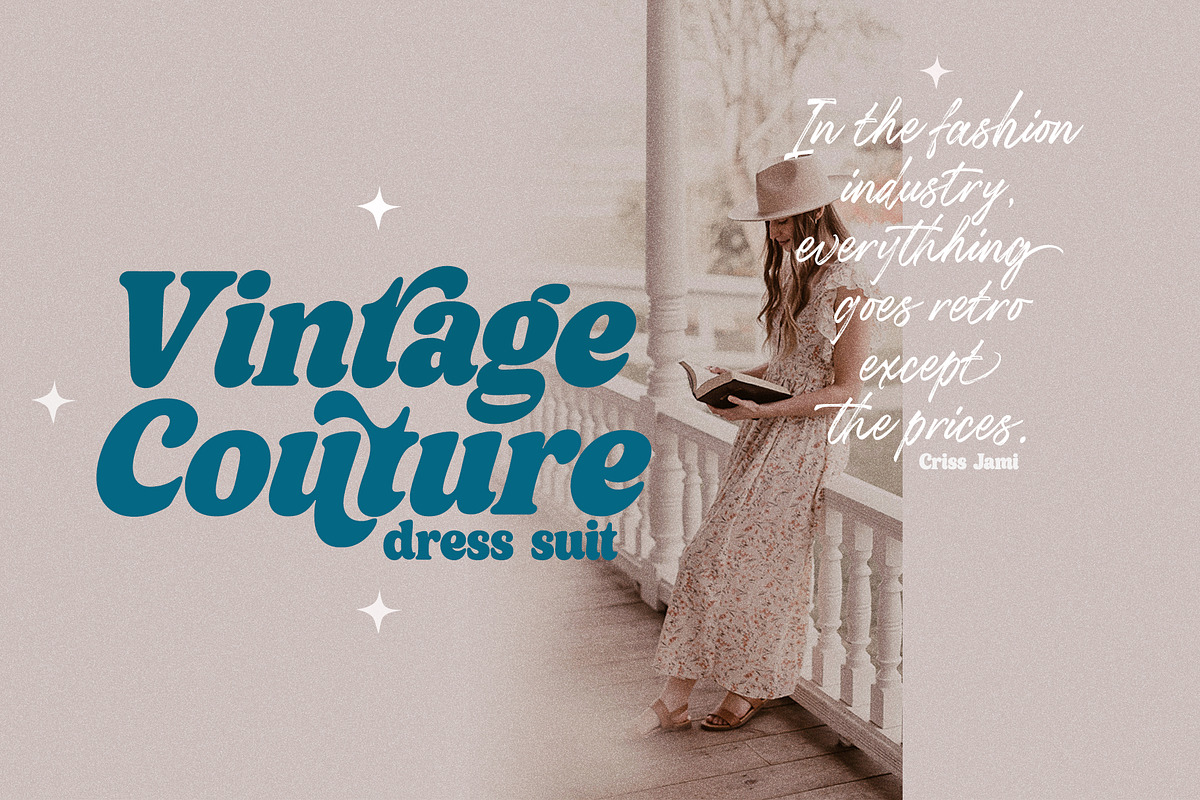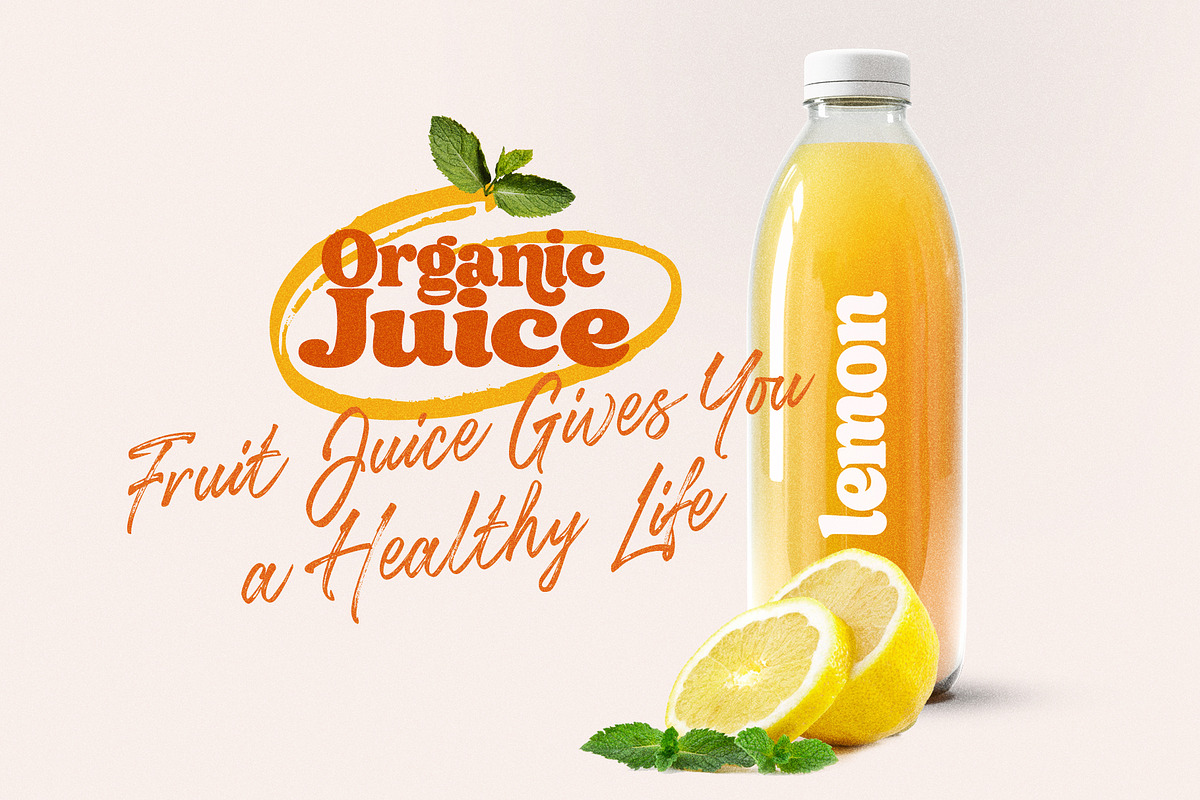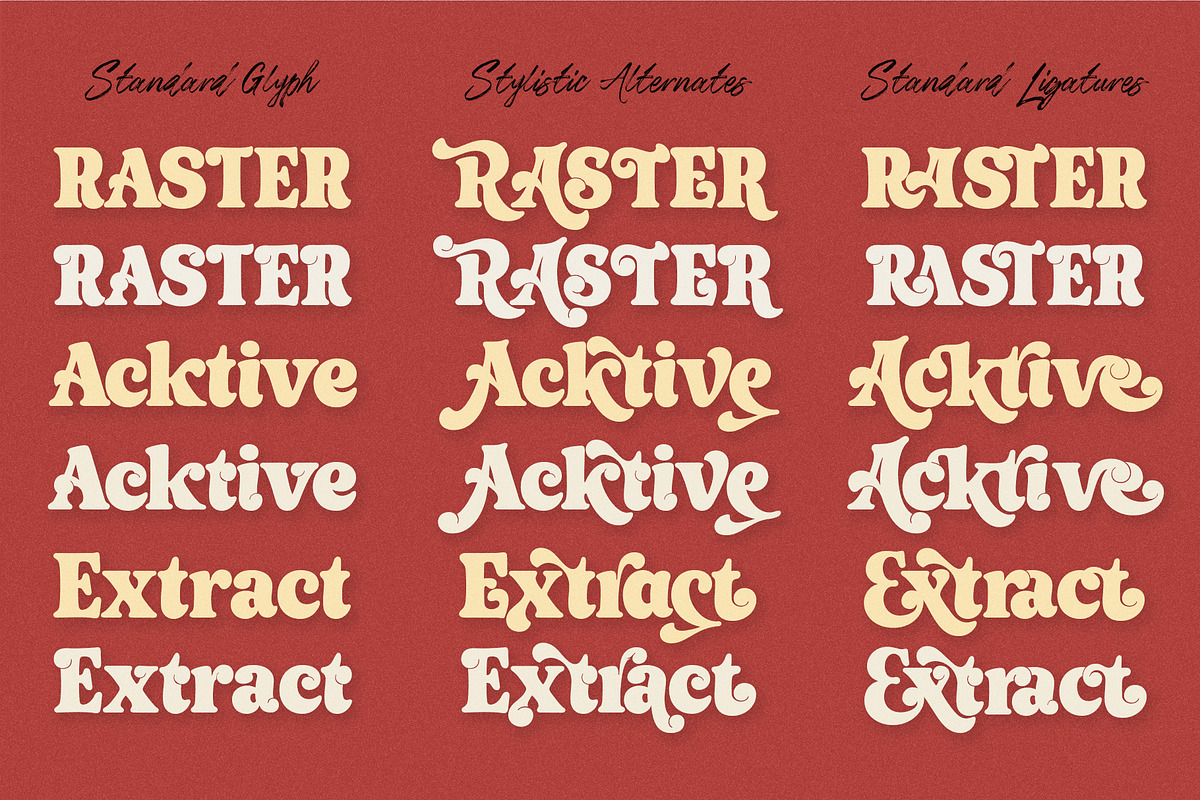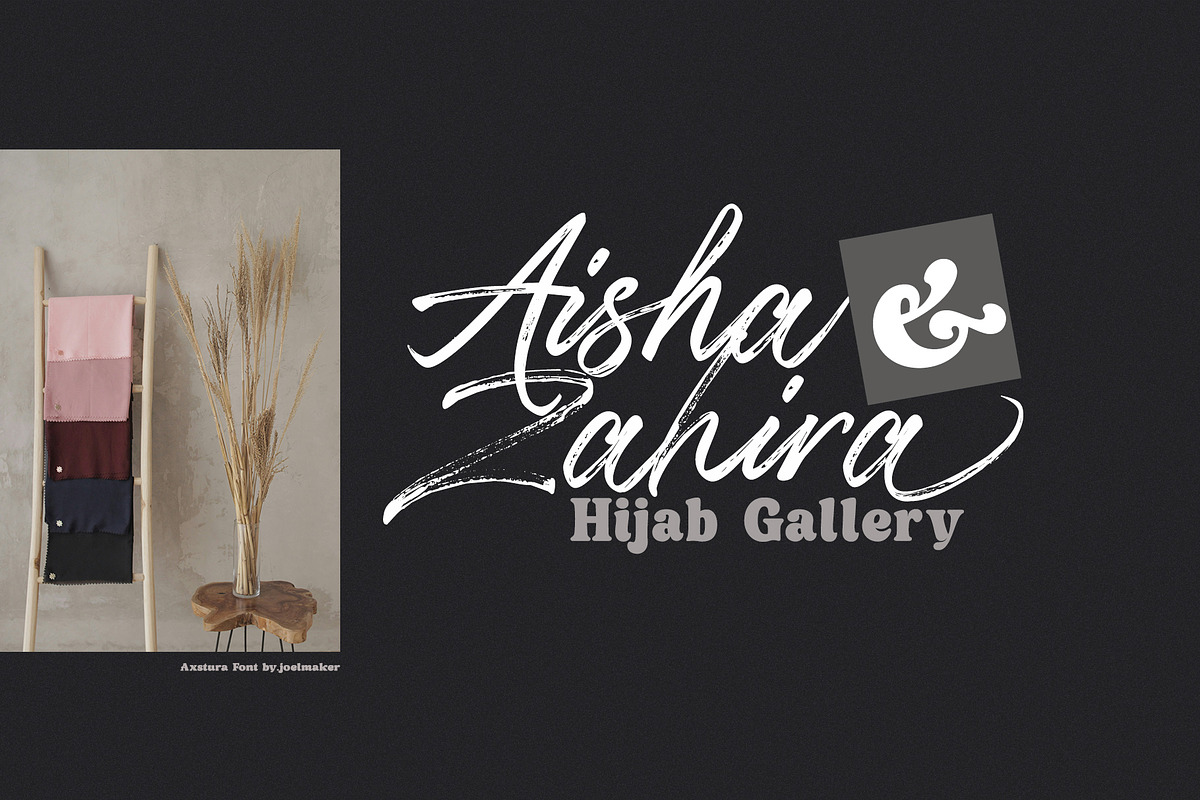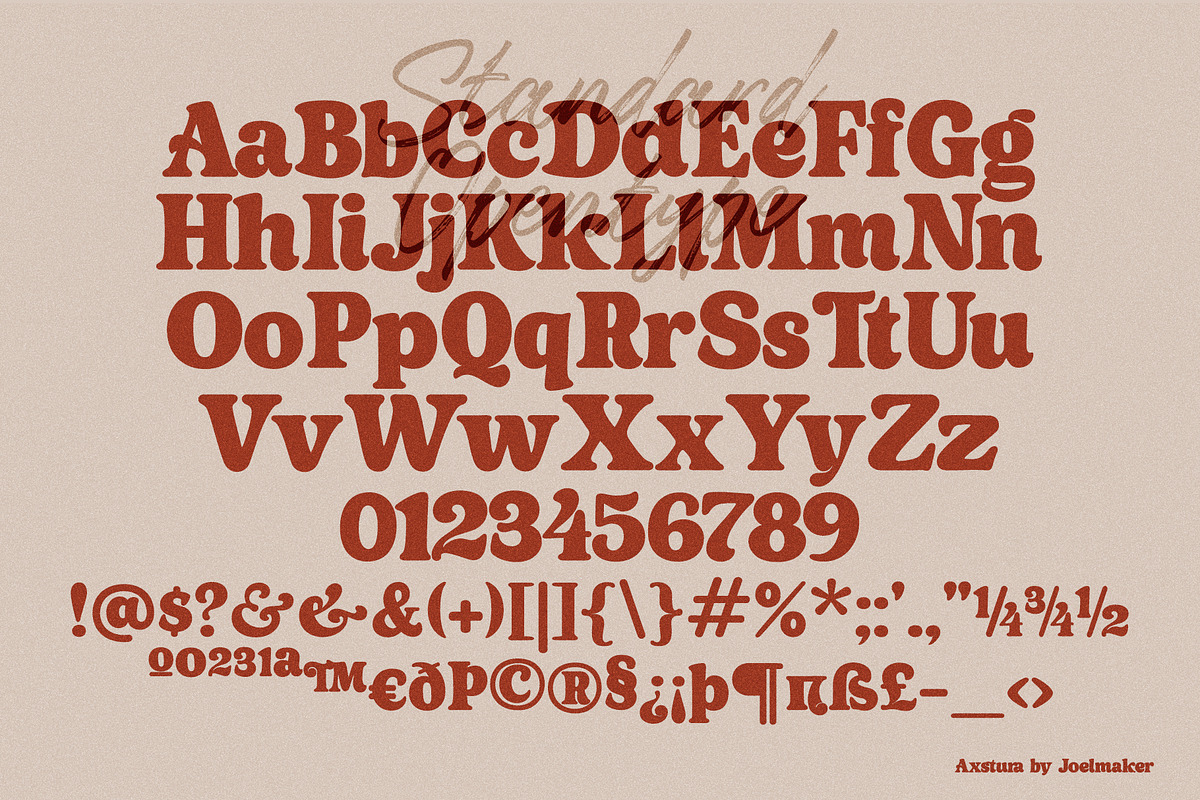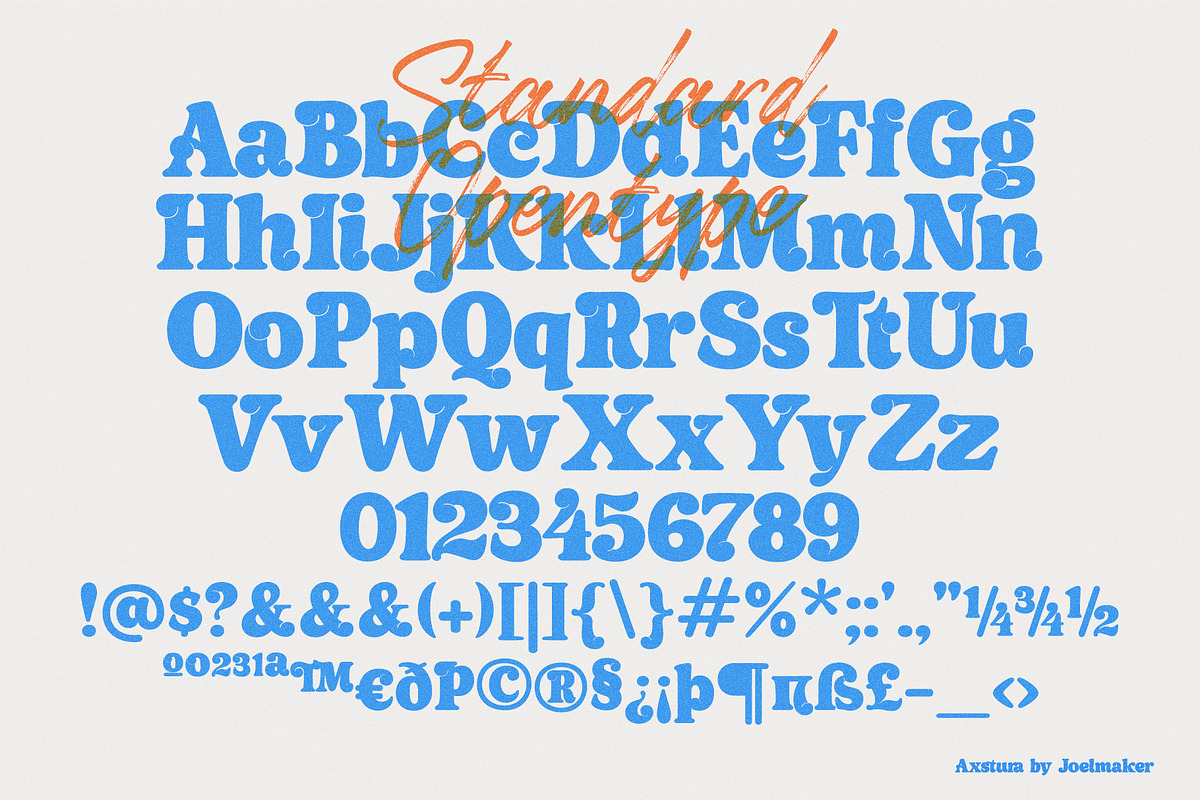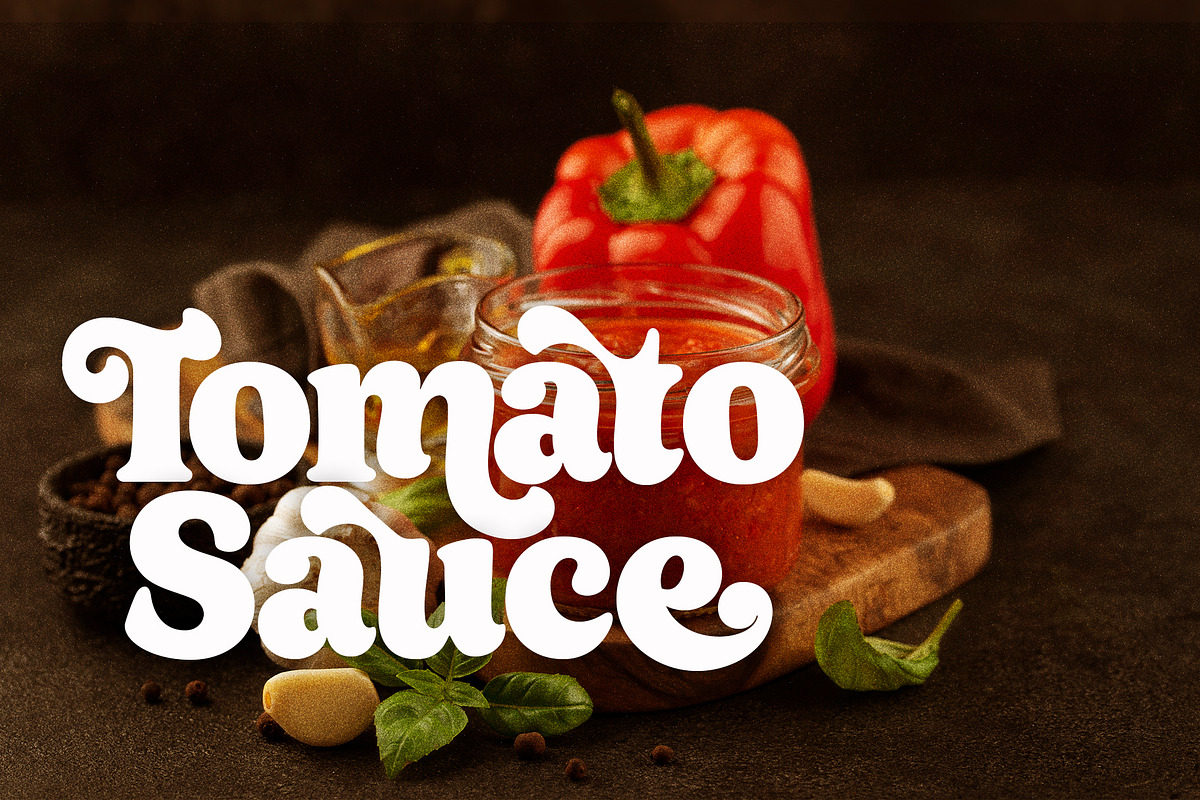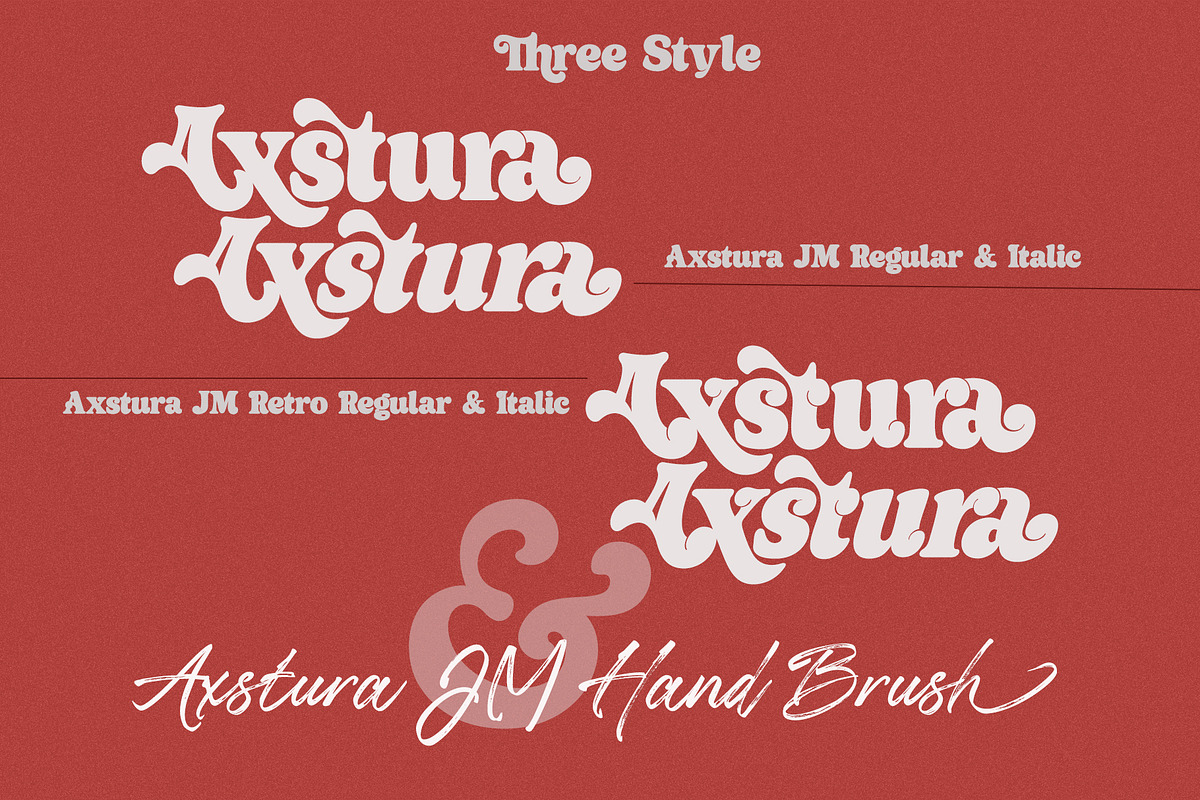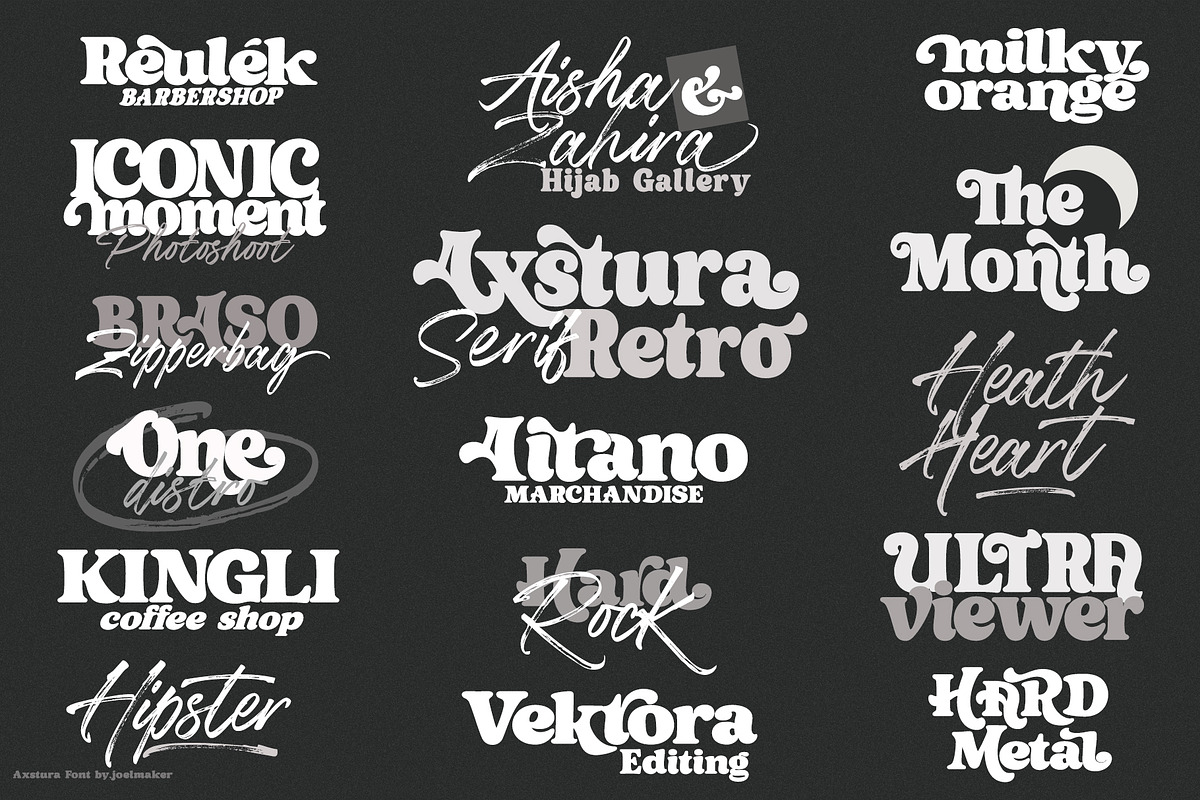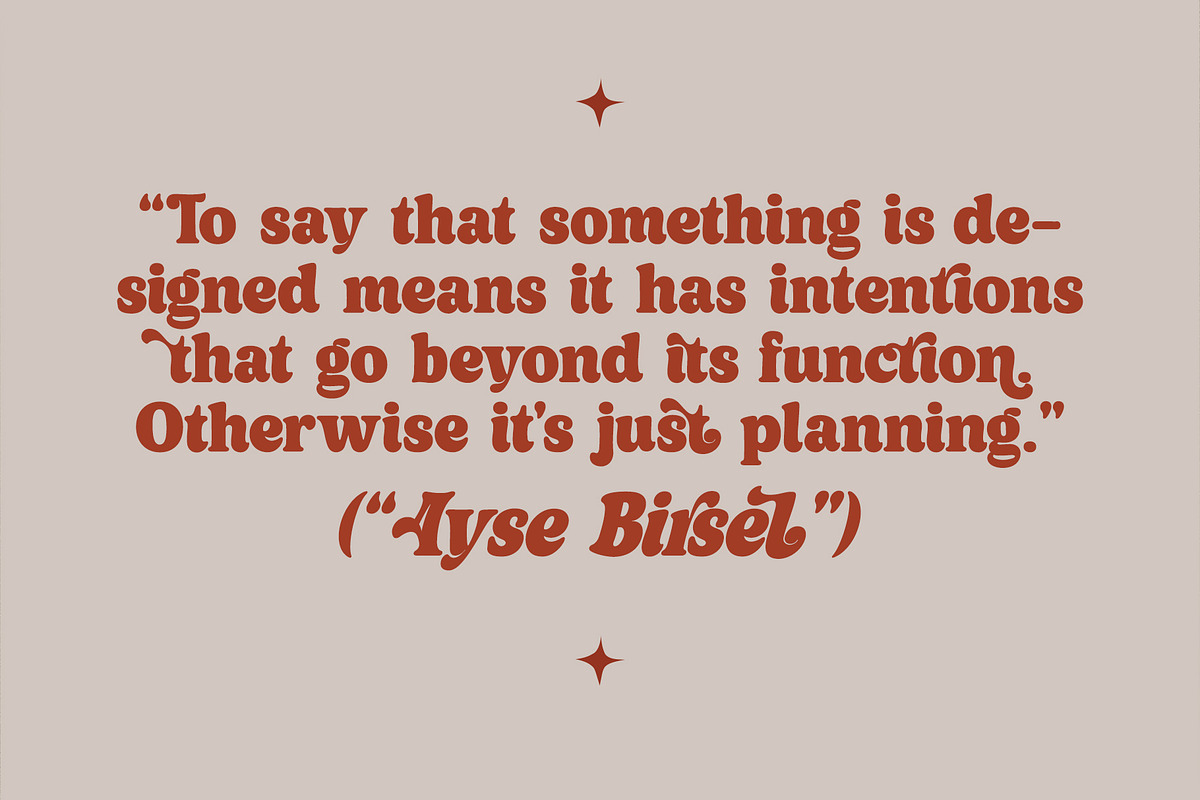
Axstura Jm
THREE STYLES 5 FONT
Axstura JM - Axstura JM Retro & Axstura JM Hand Brush... Font with an artistic touch elegant modern yet vintage the as well as a unique blend of ligatures a letter, so that the authors compose it with a and little swirly embedding, so that a modern font is formed and ready to make a statement by adding elegant and unique flair to your next design project.
Axstura JM - Axstura JM Retro & Axstura JM Hand Brush... can be used for various purposes such as Magazine Title, Poster, Logo, T-Shirt, Sub Title, Business cards, Magazines, Book Covers, Wedding Invitations,Templates Instagram Story Post, Greeting Cards, Quotes, etc.
This font comes with four styles, Axstura JM Regular, Axstura JM Italic, Axstura Regular, Axstura Italic.
Come on..let's style and pamper your next design with Axstura JM and Axstura JM Retro + Axstura JM Hand Brush.